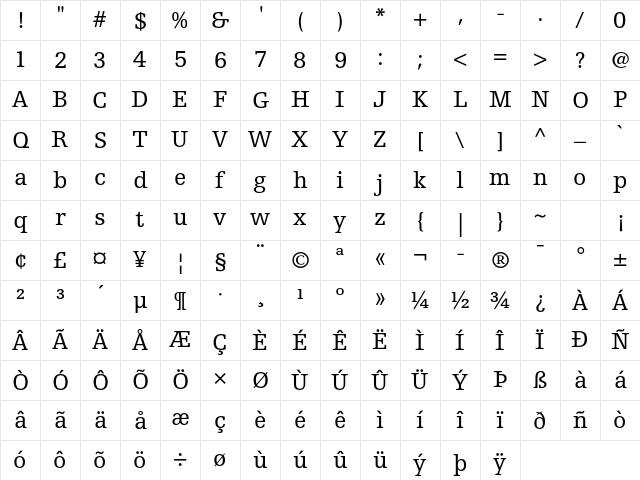
Egyptienne F LT Std 55 Roman
Style: 55 Roman
Design Context for Egyptienne F LT Std
Egyptienne F LT Std is a composed and adaptable typeface that performs quietly and consistently across a wide range of design contexts. Its slender proportions lend an understated elegance to any composition.